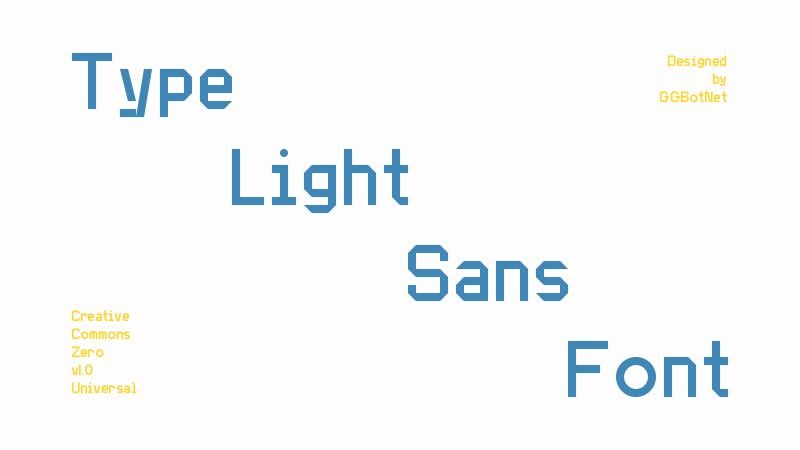
Type Light Sans
Type Light Sans font by GGBotNet brilliantly merges geometric and modernist influences for a clean, structured appearance. This free techno display font offers a digital feel with its simplistic and straightforward aesthetics, making it an appealing choice for many design projects.
Develop eye-catching posters, creative advertising banners, unique business cards, edgy website designs, or minimalistic magazine covers. It also fits well in app interfaces as either headings or body texts.